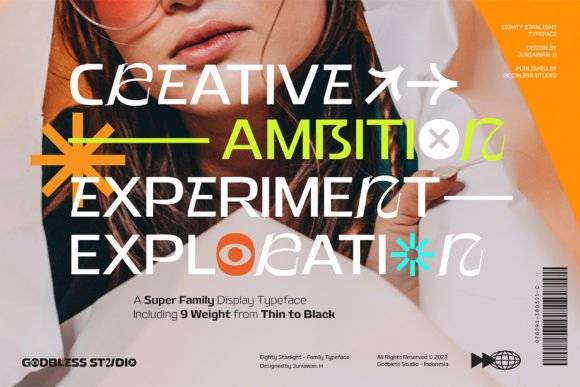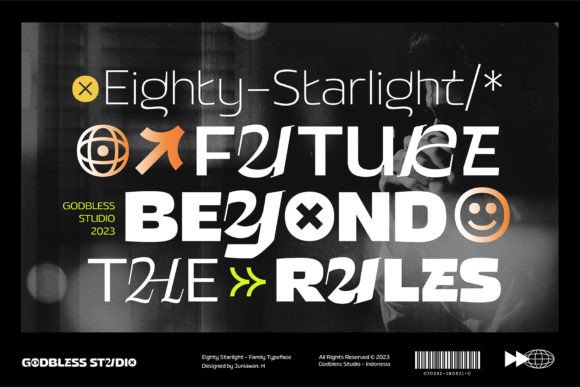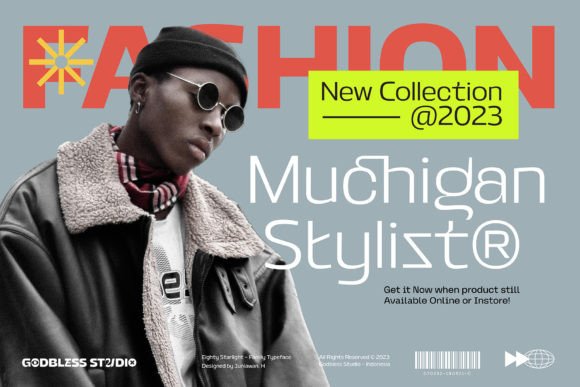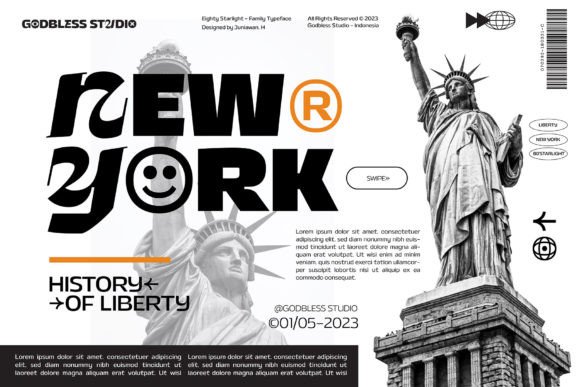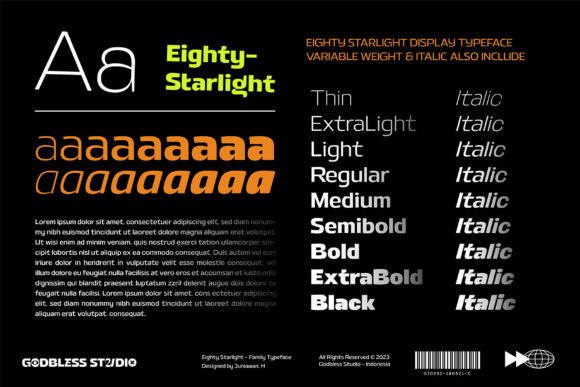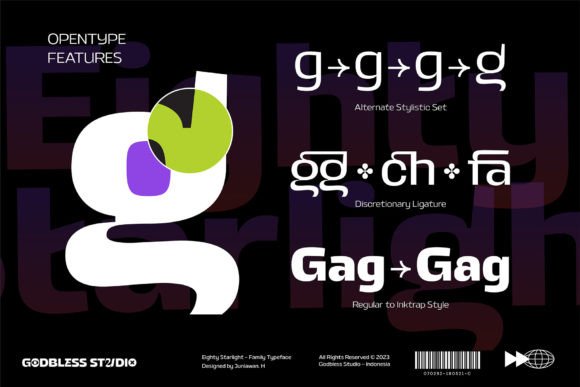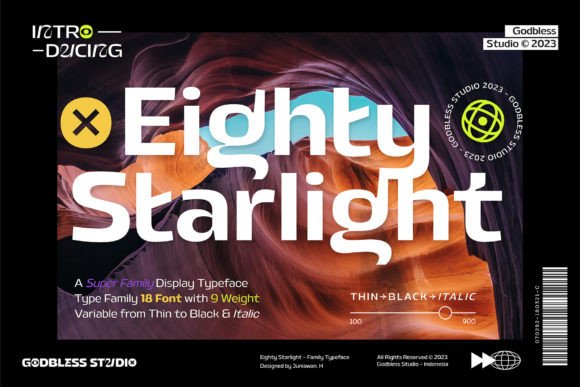
Eighty Starlight Font: A Futuristic Display Font for Innovative Designs
In the world of typography, fonts play a crucial role in conveying the tone and personality of a brand or design. With the ever-evolving landscape of digital design, the demand for unique and attention-grabbing fonts has increased. This is where Eighty Starlight Font comes in – a distinctive and futuristic display font that pushes the boundaries of typography with its bold, unconventional design.
Unconventional Design for a Bold Statement
Eighty Starlight Font boasts striking, futuristic letterforms that create a sense of innovation and progress. Its unique shapes and proportions make it perfect for designs that demand a strong and memorable presence. Whether you’re working on a branding project, advertising campaign, or high-tech application, this font is sure to make a lasting impression.
Key Features of Eighty Starlight Font
• Distinctive and Futuristic Design: Eighty Starlight Font features bold, unconventional letterforms that are sure to grab attention.
• PUA Encoded: The font is PUA (Private Use Area) encoded, making it easy to access all delightful glyphs and swashes effortlessly.
• Wide Range of Applications: Ideal for use in branding, advertising, and other high-tech applications where a strong and memorable presence is required.
Why Choose Eighty Starlight Font?
With so many fonts available, why choose Eighty Starlight Font? Here are a few reasons why designers and crafters will love this font:
• Unique and Memorable: The font’s distinctive design ensures that your design will stand out from the crowd and leave a lasting impression.
• Versatile: Eighty Starlight Font can be used in a wide range of applications, from branding and advertising to high-tech applications.
• Ease of Use: The PUA encoded font makes it easy to access all glyphs and swashes, saving you time and effort.
Tips for Using Eighty Starlight Font
To get the most out of Eighty Starlight Font, here are a few tips:
• Use it as a Display Font: Eighty Starlight Font is perfect for use as a display font, where its bold and futuristic design can take center stage.
• Experiment with Different Sizes: The font’s unique design works well at various sizes, so don’t be afraid to experiment and find the perfect size for your design.
• Pair it with Other Fonts: Eighty Starlight Font can be paired with other fonts to create a unique and visually appealing design.
Eighty Starlight Font is a game-changer for designers and crafters looking for a distinctive and futuristic display font. Its bold, unconventional design and PUA encoded features make it perfect for a wide range of applications. With its unique and memorable design, versatility, and ease of use, Eighty Starlight Font is sure to become a go-to font in your design arsenal.
Get Ready to Shine with Eighty Starlight Font
So, are you ready to take your designs to the next level with Eighty Starlight Font? With its futuristic design and ease of use, this font is sure to help you create innovative and memorable designs that shine.